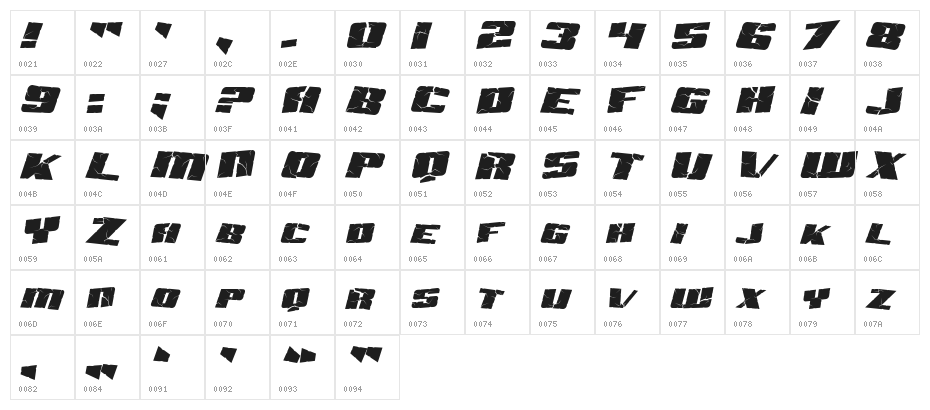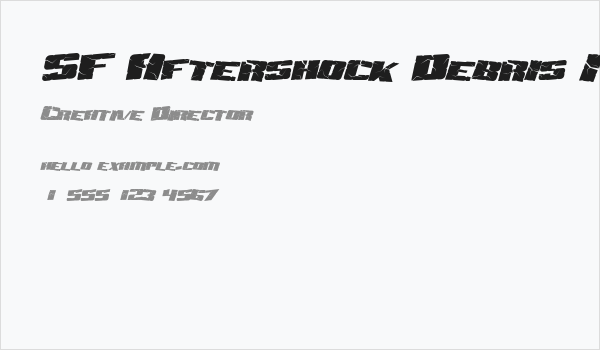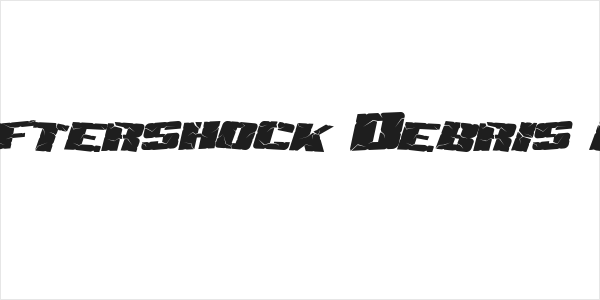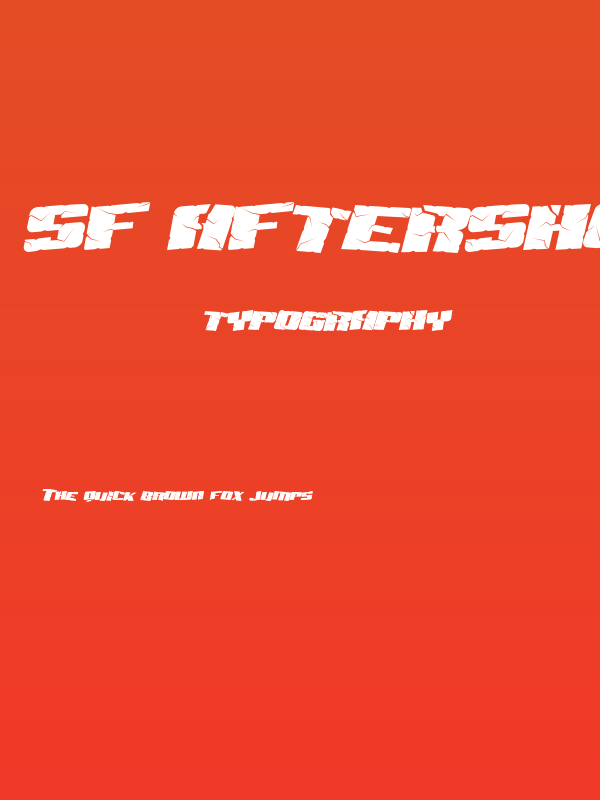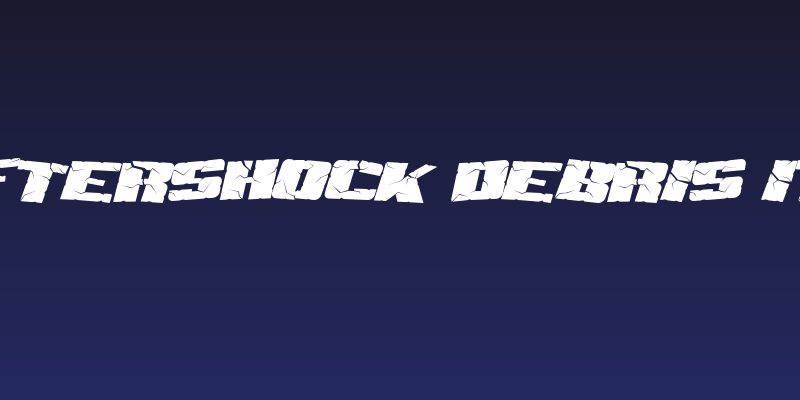
SF Aftershock Debris Italic Font
SF Aftershock Debris Italic Description
This font features a bold and dynamic design with a shattered, debris-like appearance. Each character is constructed with angular, fragmented shapes that give the impression of destruction or chaos. The italic slant adds a sense of movement and urgency, enhancing its dramatic effect. The font's thick strokes and irregular edges make it highly distinctive and eye-catching, suitable for projects that require a strong visual impact. Its unique style is reminiscent of post-apocalyptic or industrial themes, making it ideal for creative and edgy designs.
| Proposed Projects | Ideal for movie posters, video game titles, event flyers, and branding for edgy or industrial-themed products. |